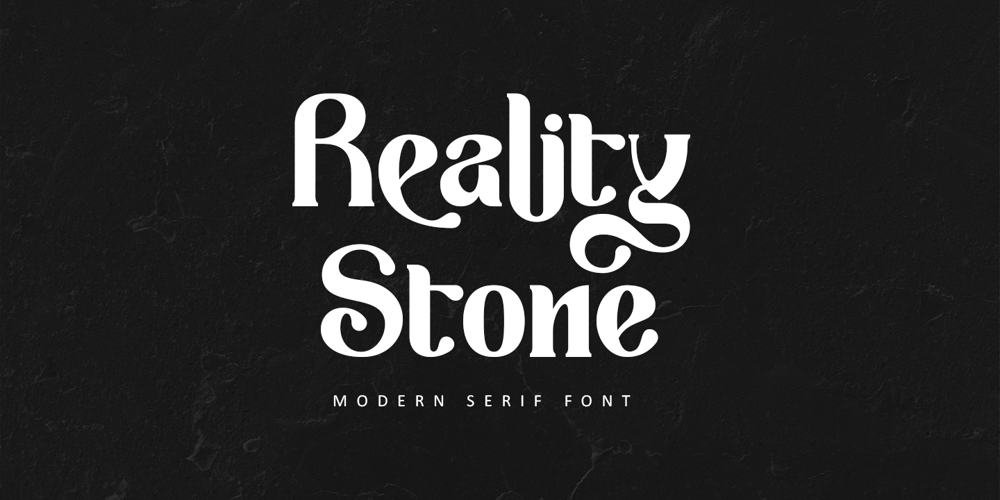
Reality Stone Font Family was designed by Thomas Aradea and published by Letterara. Reality Stone contains 2 styles and family package options. Introducing “Reality Stone,” a bold and impactful serif font that commands attention and makes a powerful statement. With its strong and confident letterforms, this font is perfect for adding a touch of authority and professionalism to your designs. Stand out from the crowd and elevate your designs with the striking elegance of Reality Stone, the font that combines strength and sophistication in perfect harmony.